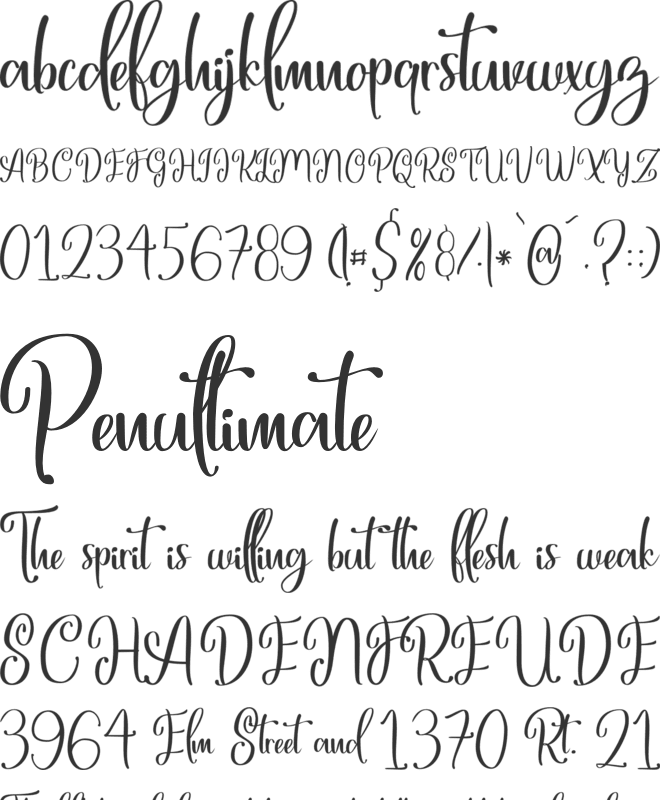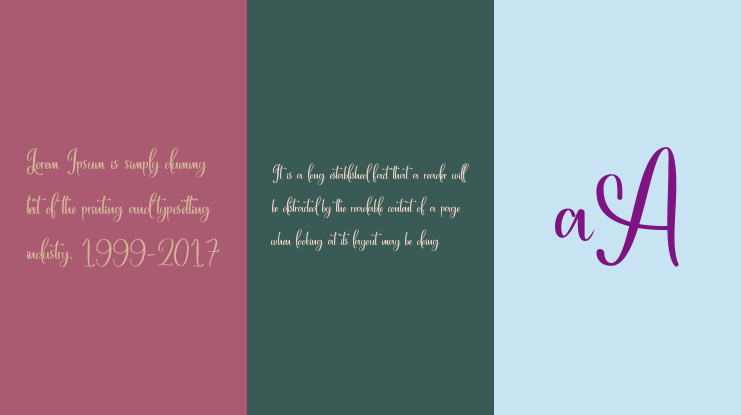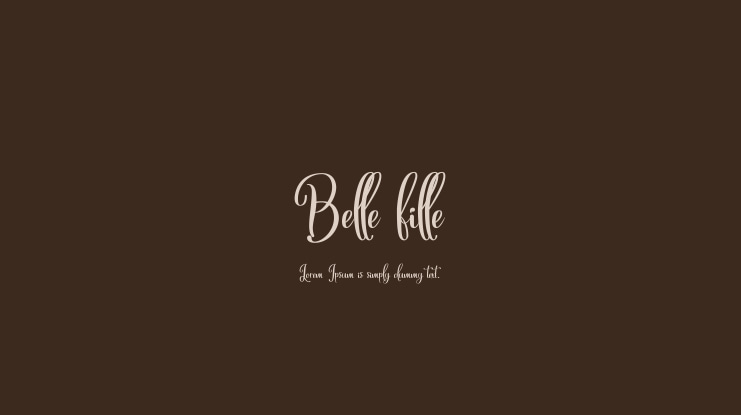
Belle fille Font Family
Belle Fille with script font styles. A collection of letters and numbers suitable your projects also great for Logotype, Branding Design, Logo Design, Digital Lettering Arts, T-Shirt/Apparel, Poster, Magazine, Signs, Advertising Design, and any design needs.